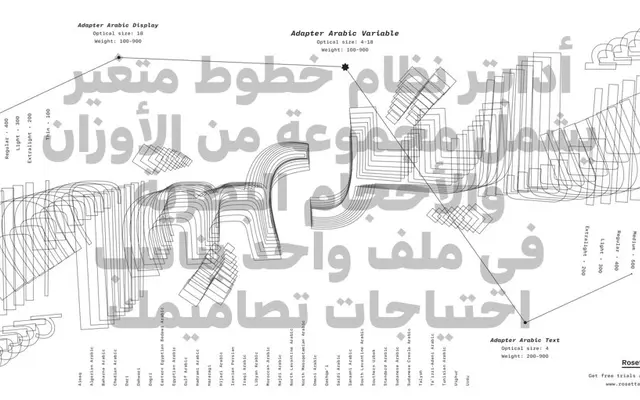
Adapter Arabic
A dual-personality Arabic sans-serif by Borna Izadpanah, splitting into Text and Display optical variants to serve both continuous reading and headline work across Arabic, Persian and Urdu.
Designed by typeface designer and University of Reading lecturer Borna Izadpanah, the family separates into two optical cuts: Text, with generous spacing, open counters and a straighter baseline suited to screen reading, and Display, with tighter spacing and more fluid round forms intended for headlines and posters. The full family of 17 styles plus a variable font spans Extralight to Black, with the Display cut adding a Thin weight at its lightest end. It forms part of Rosetta's Adapter World programme, which coordinates a single modernist design language across Arabic, Cyrillic, Georgian, Greek, Hebrew, Latin and Tamil.
A modernist sans-serif designed for both text and display use, drawing on neo-grotesque principles whilst being adapted for Arabic, Persian and Urdu scripts alongside the broader Adapter World Latin-based system.